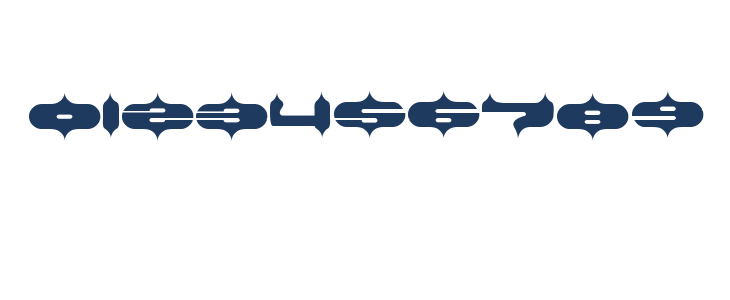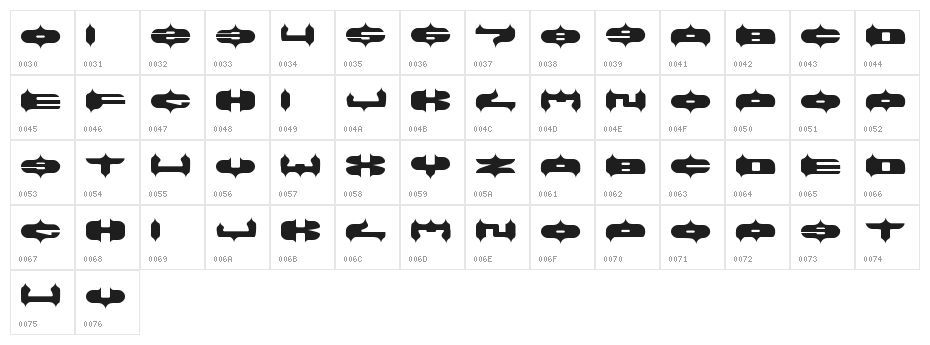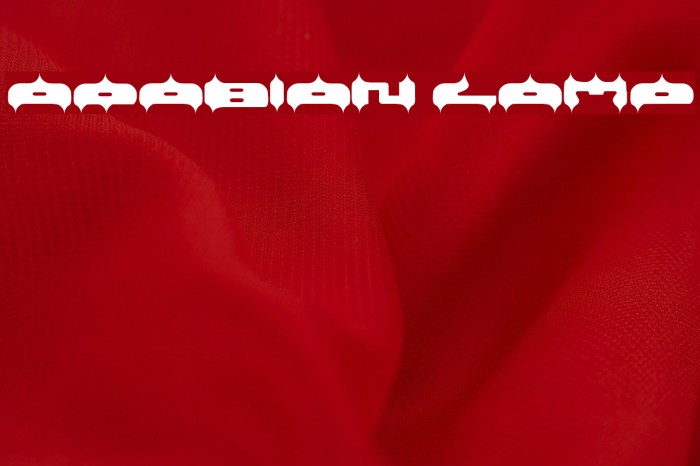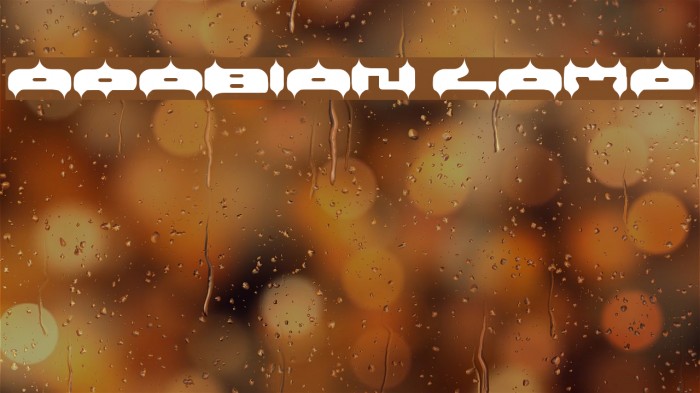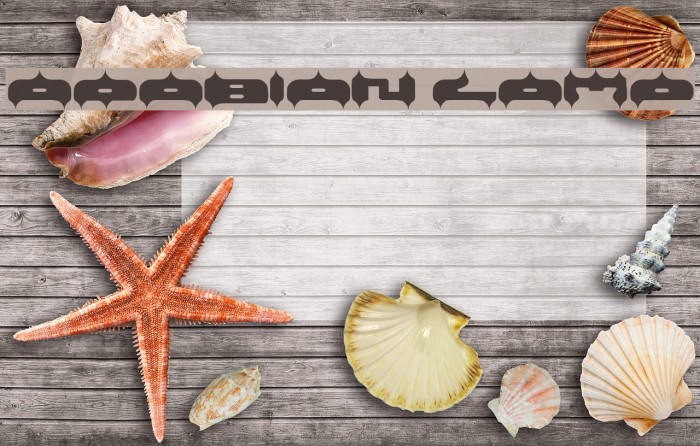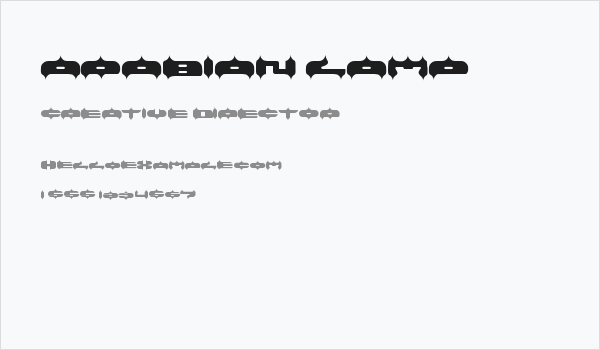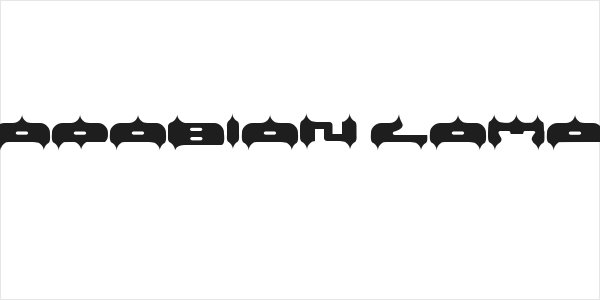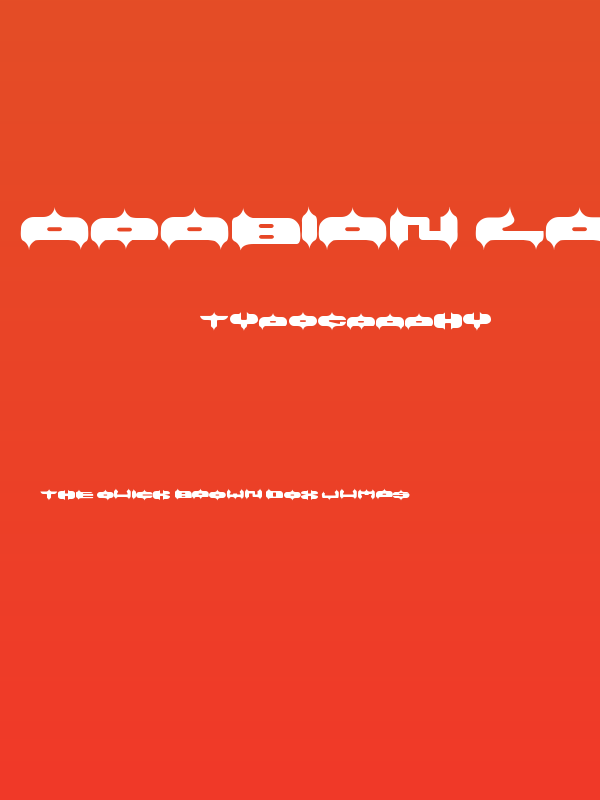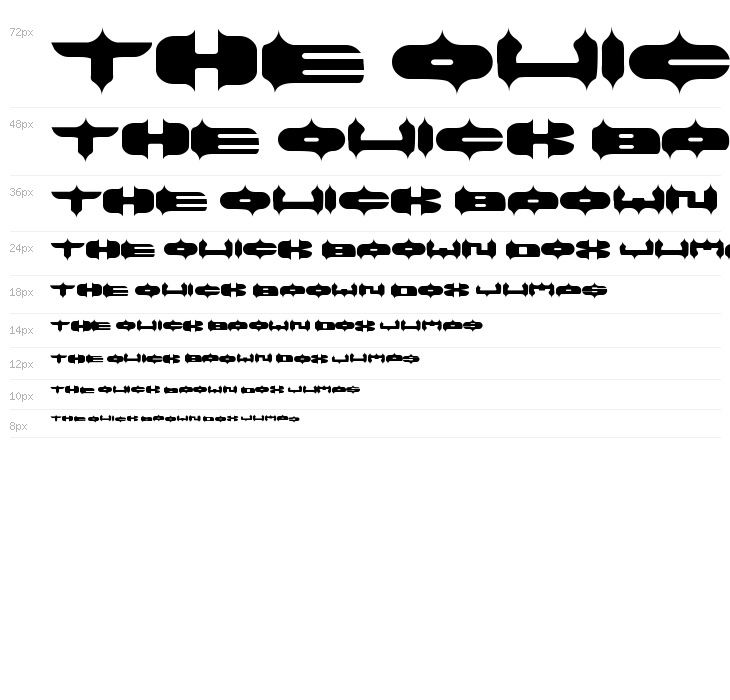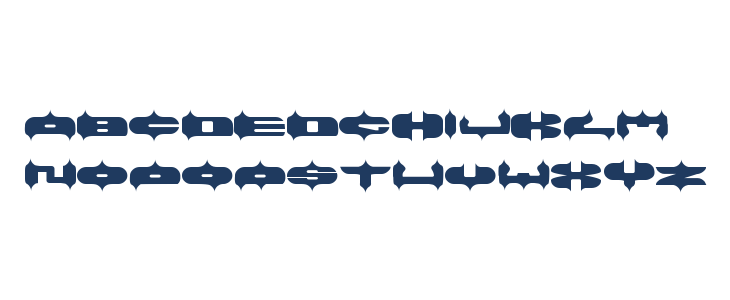
ARABIAN LAMP Font
ARABIAN LAMP Description
This font features a unique, decorative style with intricate, lamp-like shapes that evoke a sense of mystery and exoticism. The characters are bold and heavily stylized, with sharp edges and symmetrical curves that create a visually striking appearance. The design incorporates elements reminiscent of Middle Eastern art, with a modern twist that makes it suitable for contemporary use. The uppercase and lowercase letters maintain a consistent design theme, while the numbers and special characters seamlessly integrate into the overall aesthetic. This font is ideal for projects that require a touch of elegance and cultural flair.